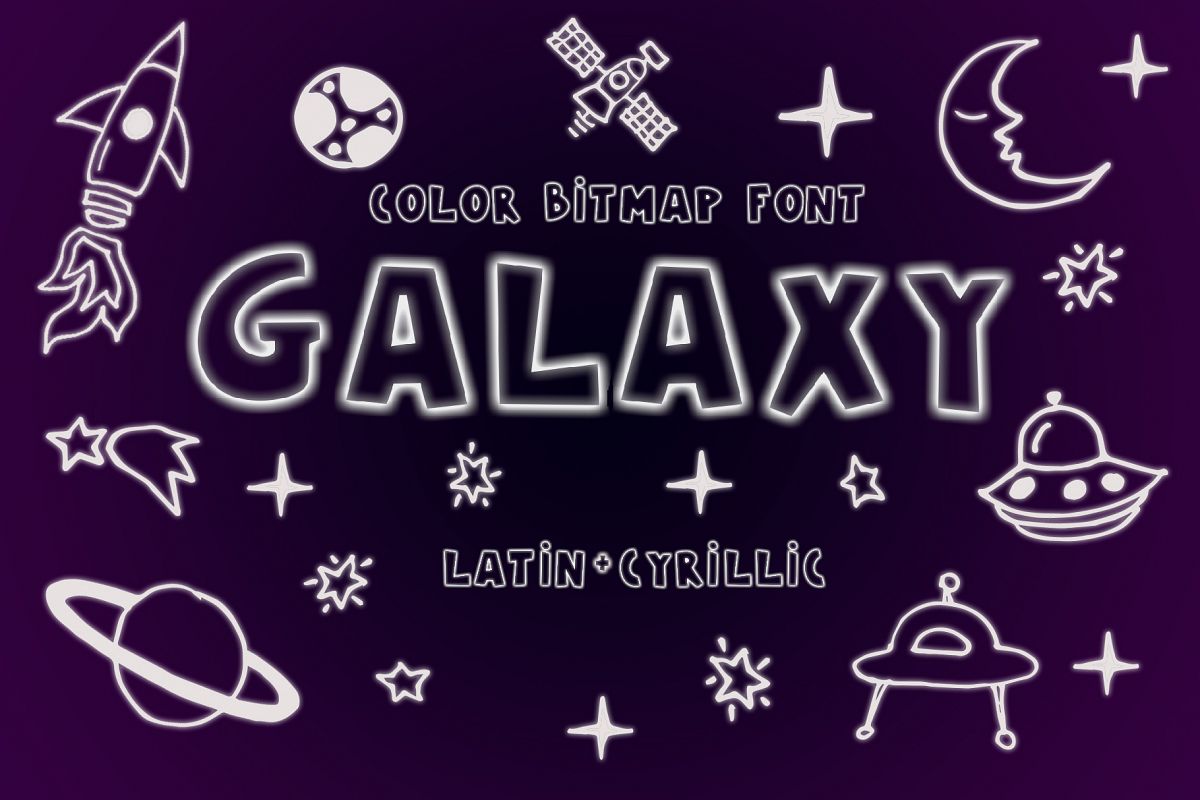
Galaxy Color Bitmap Font
Galaxy black
I'm happy to present you my new color OpenType-SVG font – Galaxy with Latin and Cyrillic letters! It's a fun and cute font! This font work nicely for all sorts of things including t-shirt design, typographic art, social media images and so much more!Galaxy font zip. folder include: